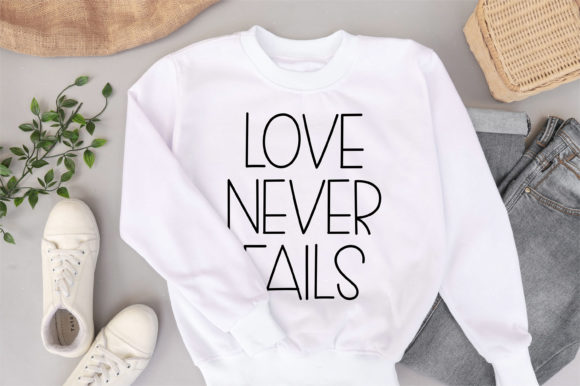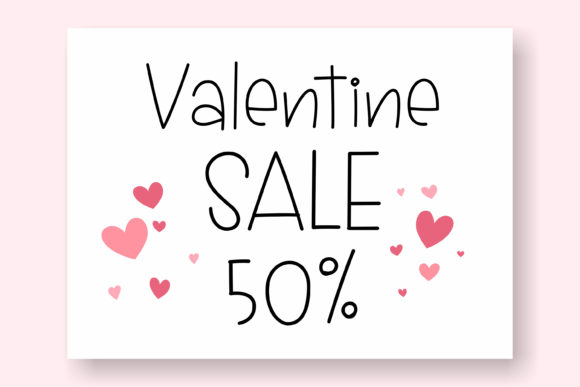
Chilly Bicka Font
db-ku.com - Script & Handwritten -- Chilly Bicka is a cute, round lettered and light handwritten font. Its sweet and full of life style makes this font a wonderful choice for brightening up your designs.